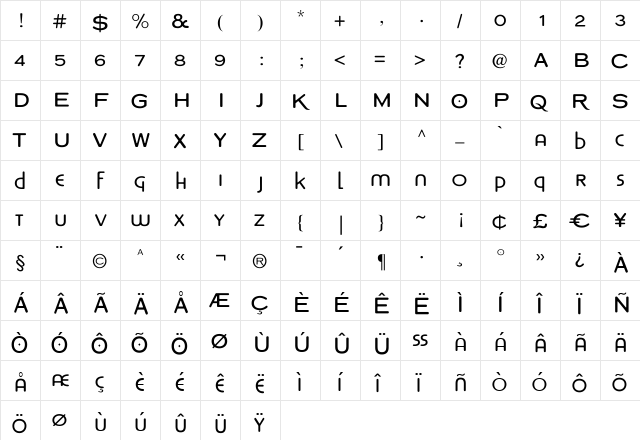
Copperplate Modern Light Regular
Design Context for Copperplate Modern Light Typeface
Copperplate Modern Light offers clean, dependable letterforms without strong stylistic allegiance, making it a practical choice for designers who need flexibility. The delicate stroke weight brings airiness and refinement to layouts.
Pro Tip: Use Copperplate Modern Light in both headline and body roles to test its range before committing to a single application.